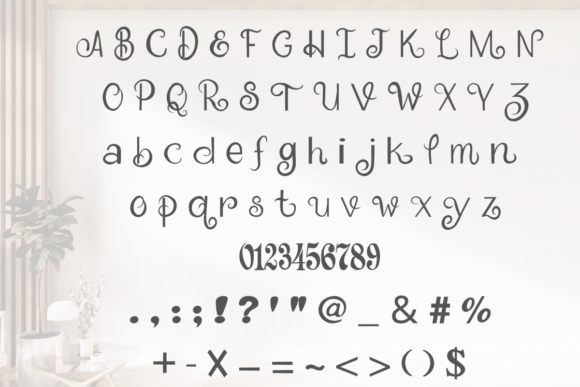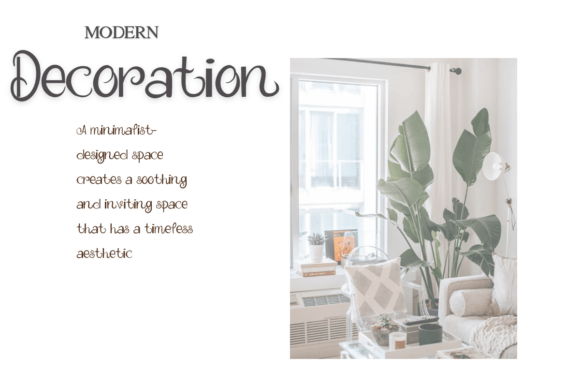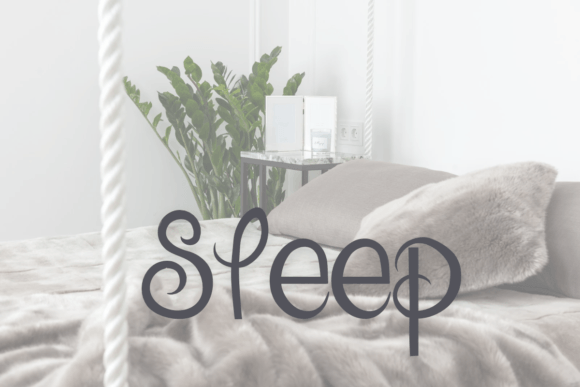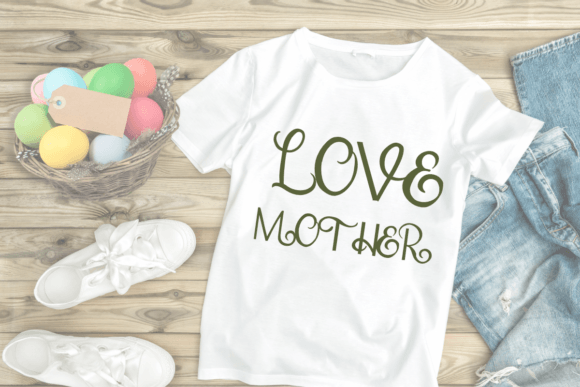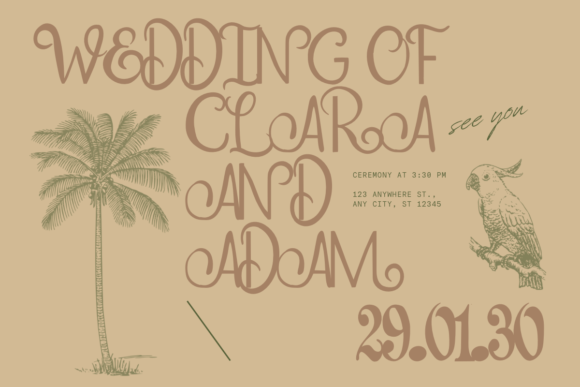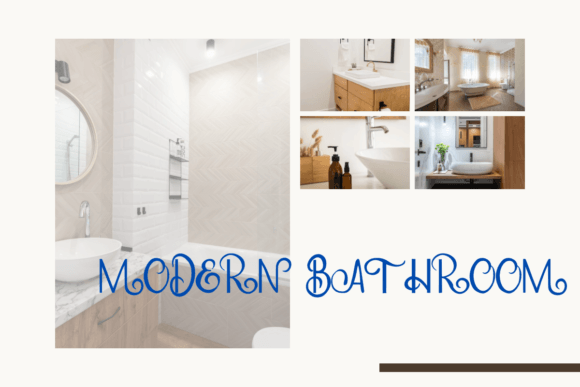
Introduction to Modern Cute Font
Have you ever found yourself scribbling down a quirky idea in a notebook, only to wish you had a more visually appealing way to express yourself? For designers and creatives alike, the quest for the perfect font can be a constant source of inspiration. That’s where the Modern Cute Font comes in – a delightful handwritten font that’s perfect for adding a touch of whimsy to your next project.
Whether you’re working on a free download for a social media campaign or designing a set of greeting cards, the Modern Cute Font is a valuable resource for any creative endeavor. With its high-quality design and transparent background, you can seamlessly integrate this font into your next project and take it to the next level.
So, what sets the Modern Cute Font apart from other design resources? Its unique blend of playfulness and sophistication makes it an ideal choice for a wide range of applications, from banners and content to mugs and shirts. In this article, we’ll delve deeper into the world of the Modern Cute Font and explore its many uses and benefits for designers and creatives.
Key Features of Modern Cute Font
- High-quality design: Modern Cute Font is carefully crafted to provide a unique and visually appealing look for your creative project.
- Unique characteristics: Modern Cute Font features a modern and cute style, perfect for branding, logos, and other creative projects that require a playful touch.
Honest Review: Modern Cute Font
I recently had the chance to work with the Modern Cute Font and I’m excited to share my thoughts with you. As a designer, I’m always on the lookout for high-quality design resources to elevate my creative projects.
What works well: ✨ The Modern Cute Font is incredibly versatile, with a range of styles and weights to suit any design need. I particularly loved using it for a recent branding project, where its playful yet sophisticated vibe really shone through.
- High-quality design with a range of styles and weights
- Transparent background for easy overlaying
However, I did notice that the font can be a bit tricky to use in certain design software. ⚠️ If you’re planning to use it in a more complex project, you may want to do some extra troubleshooting to get it to work smoothly.
Overall, I’m really impressed with the Modern Cute Font. Its unique style and high-quality design make it a great addition to any designer’s toolkit. Just be aware of the potential limitations, and you’ll be golden!
Tips for Getting the Most Out of Modern Cute Font
To get the most out of Modern Cute Font, experiment with different font styles, sizes, and colors. Combine it with other design elements to create a unique and eye-catching design. You can also use the font to create social media graphics, blog posts, or marketing materials.
Is the Modern Cute Font suitable for high-quality designs?
Yes, the Modern Cute Font is designed to be a high-quality design resource. It features a transparent background, making it easy to use with any design element. The font is also optimized for clear readability, making it perfect for use in a variety of design contexts.